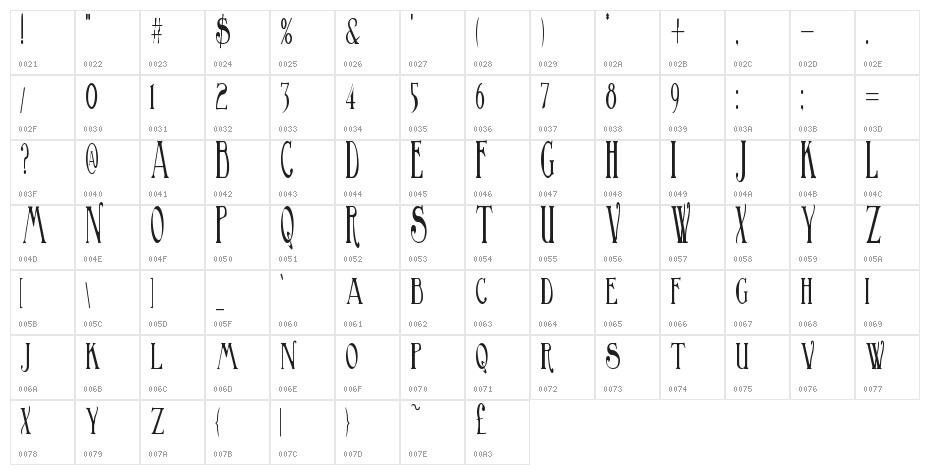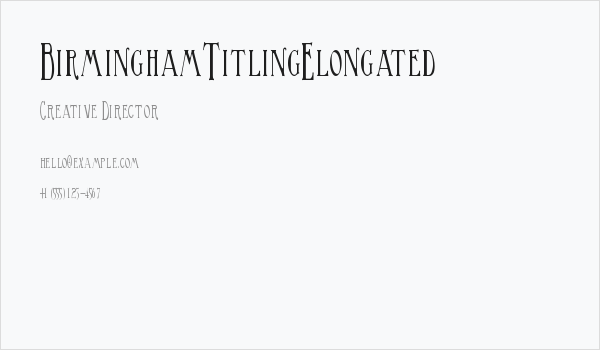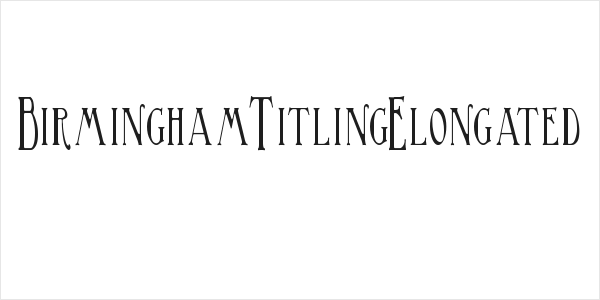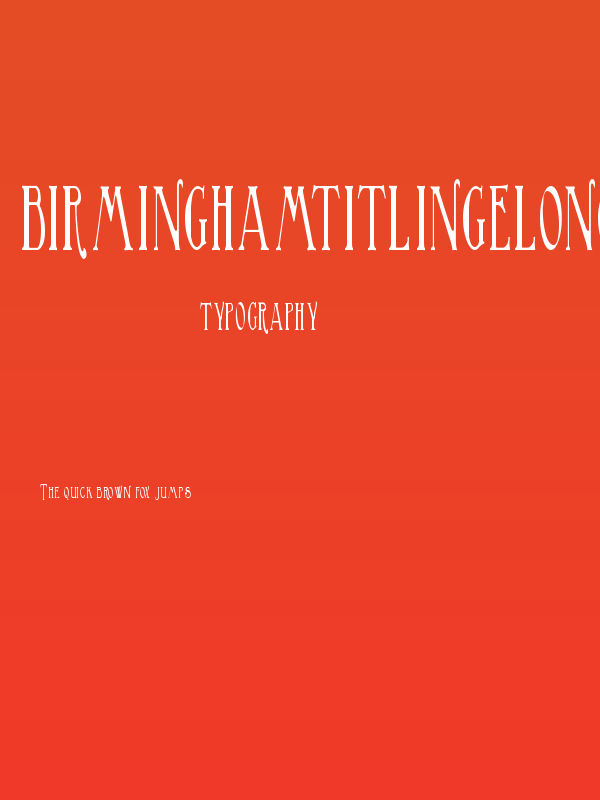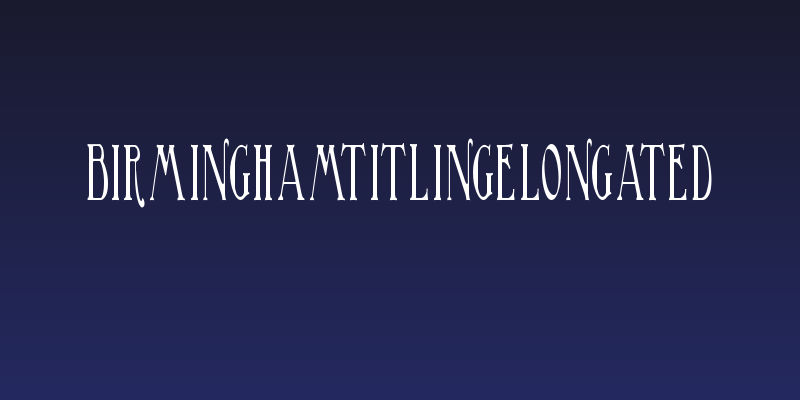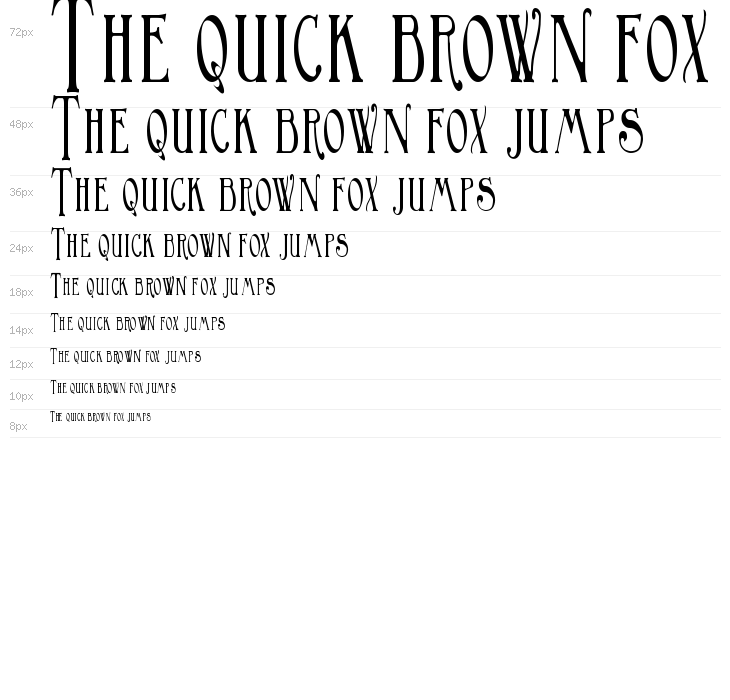
BirminghamTitlingElongated Font
BirminghamTitlingElongated Description
This font features an elongated and elegant design, characterized by its tall and narrow letterforms. The uppercase letters exhibit a unique blend of classic and decorative elements, with some characters incorporating subtle curves and flourishes. The lowercase letters maintain a consistent style, complementing the uppercase with their slender and refined appearance. The numerals are distinct and easily readable, following the same elongated style. Special characters are designed with attention to detail, adding to the font's overall sophisticated aesthetic. This font's unique style makes it suitable for projects that require a touch of elegance and distinction.
| Proposed Projects | Ideal for wedding invitations, luxury branding, book covers, and high-end product packaging. |